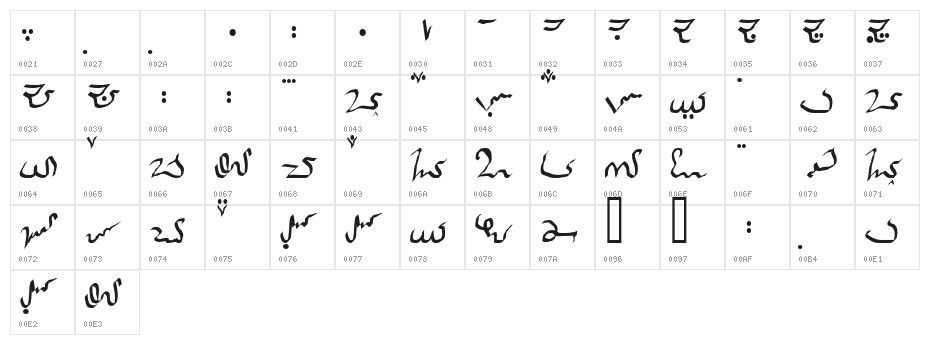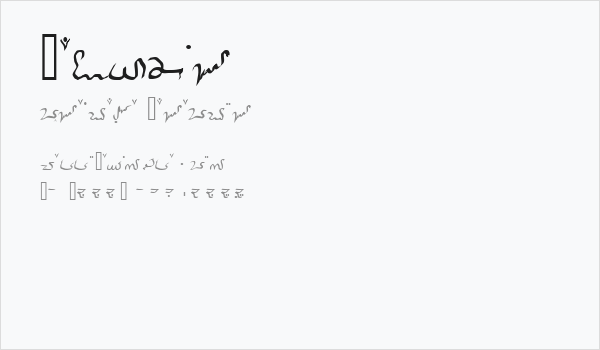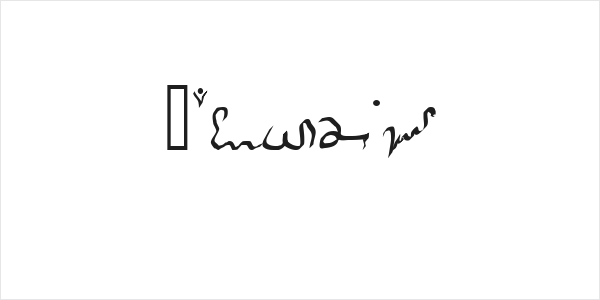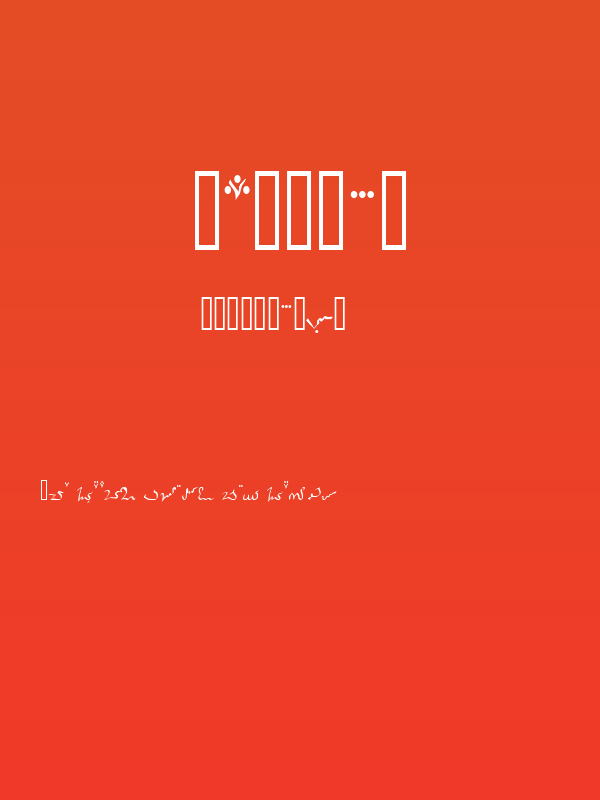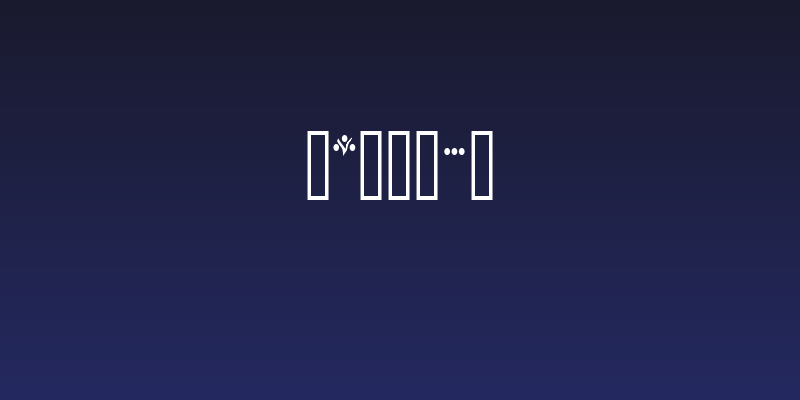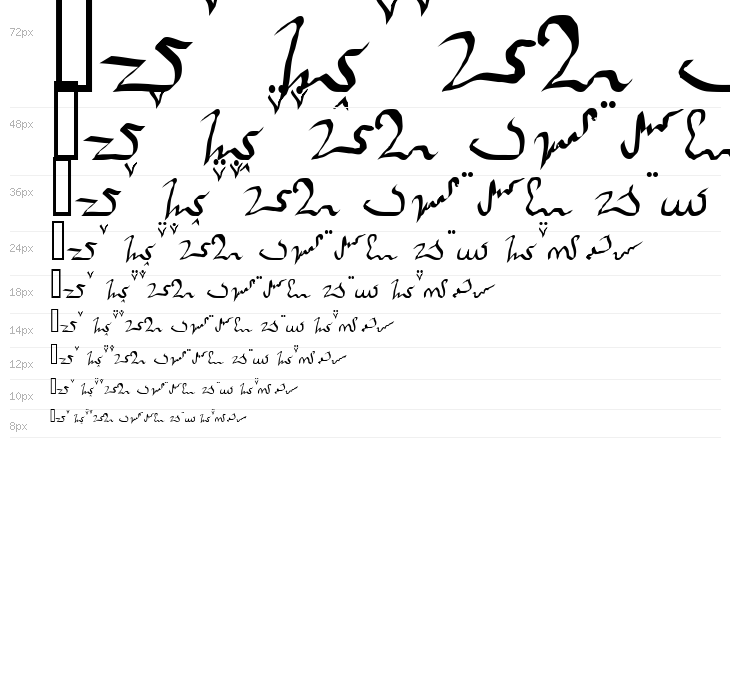
Zindzar Font
| Stile generale | Exotic and Elegant |
| Caso d'uso | Decorative purposes, artistic projects, cultural branding. |
| Progetti proposti | Ideal for artistic projects, cultural event branding, decorative posters, and historical themed designs. |